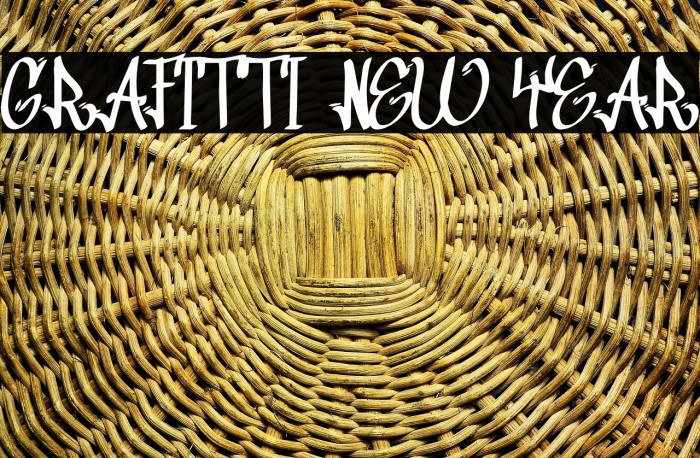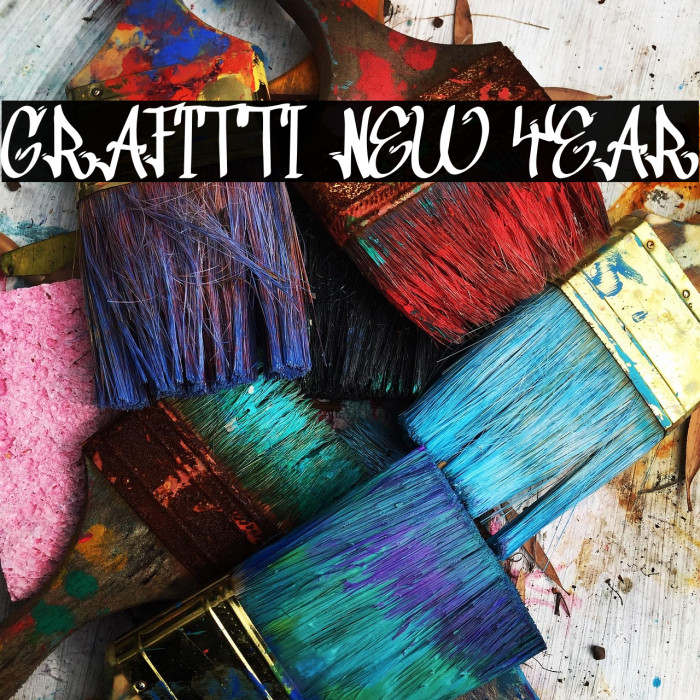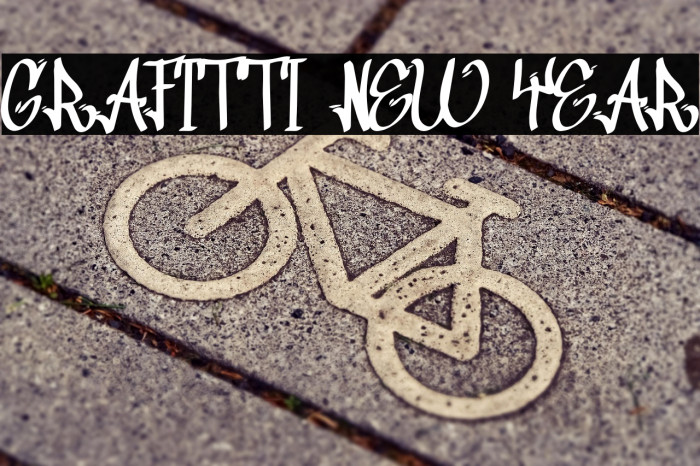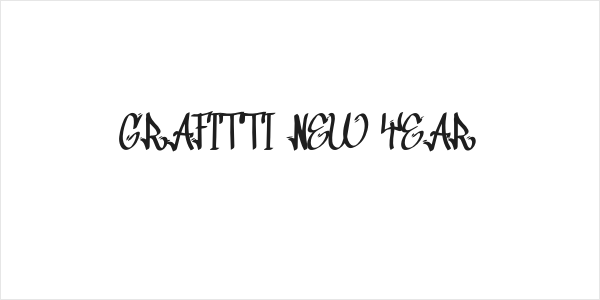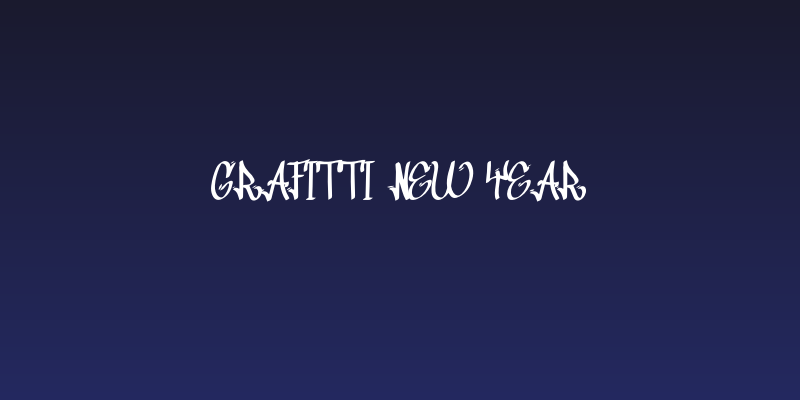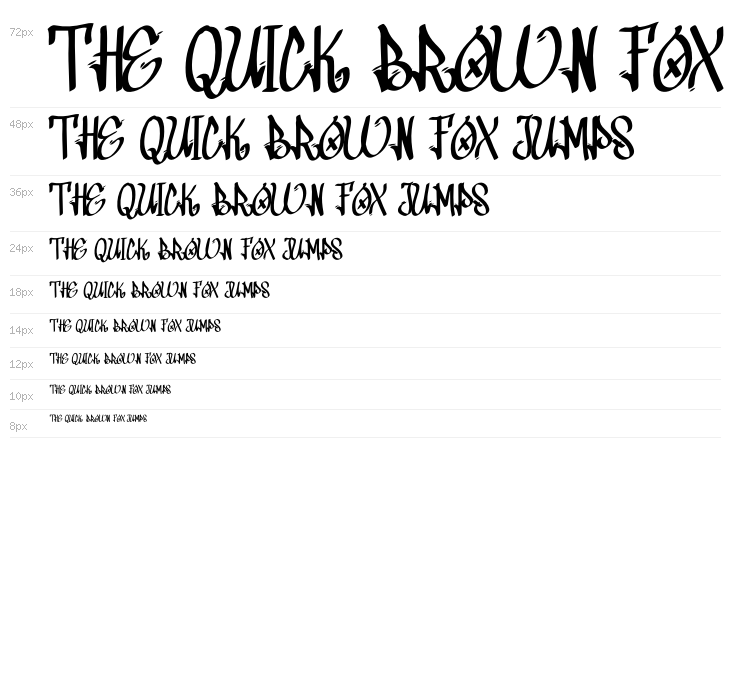
Grafitti New Year Font
Grafitti New Year Description
This font exudes a bold, urban aesthetic with its graffiti-inspired design. The characters are dynamic and energetic, featuring sharp angles and flowing curves that mimic the fluidity of street art. Each letter is uniquely stylized, with exaggerated serifs and strokes that create a sense of movement and vibrancy. The numbers and special characters maintain this lively style, ensuring consistency across all elements. This font captures the rebellious spirit of graffiti, making it perfect for projects that require a touch of edginess and creativity.
| Overall Style | Modern, Urban, Edgy |
| Proposed Projects | Ideal for street art projects, urban-themed posters, edgy branding, and creative event flyers. |